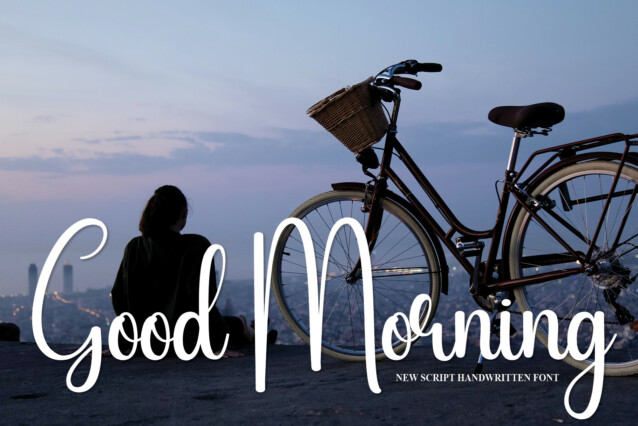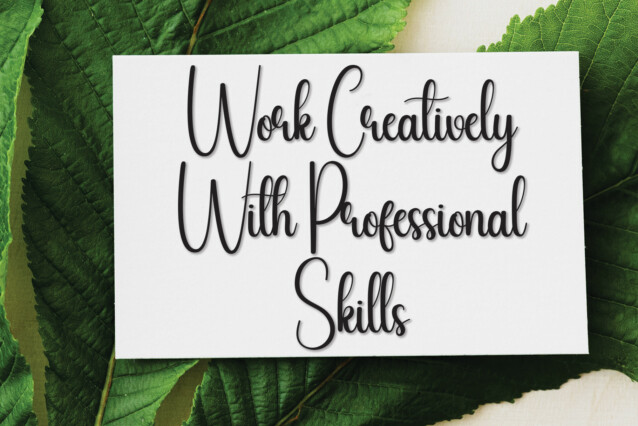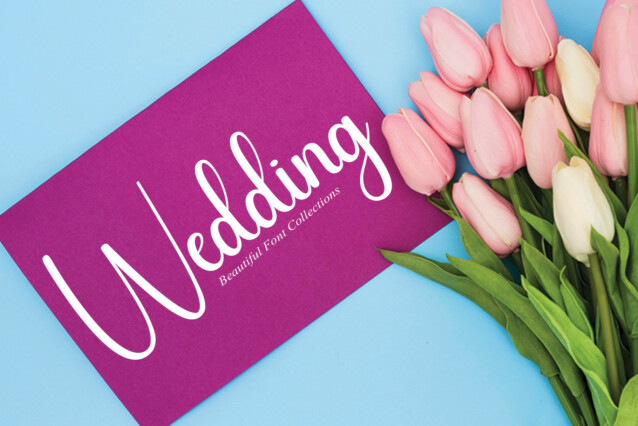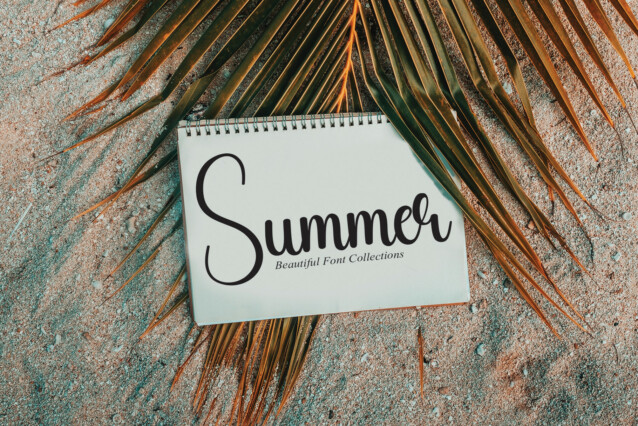
Honey Valentine Script Font
Honey Valentine Script Font is a lovely handwritten font. It’s suitable for wall displays, wedding invitations, social media post logos, advertisements, product packaging, product designs, labels, photography, watermarks, invitations, and stationery. Add this beautiful font to each of your creative ideas, and notice how it makes them stand out!